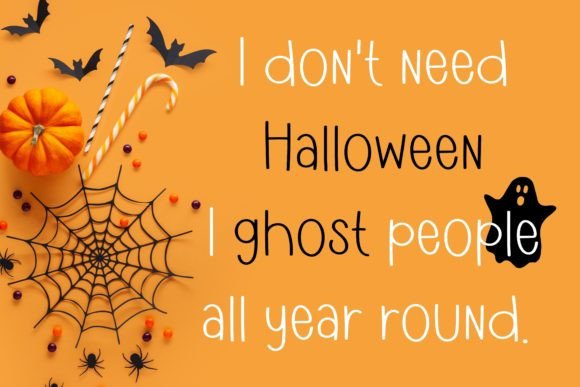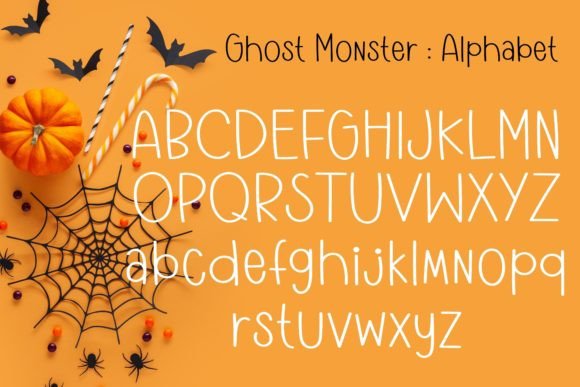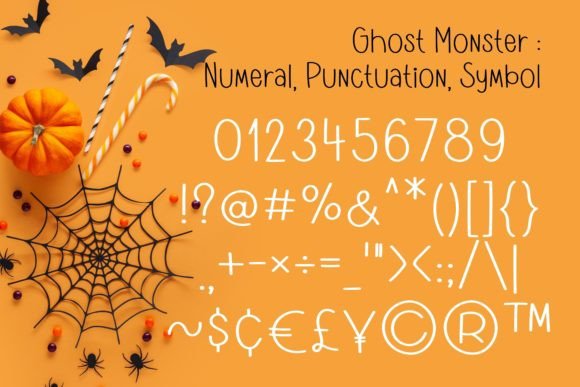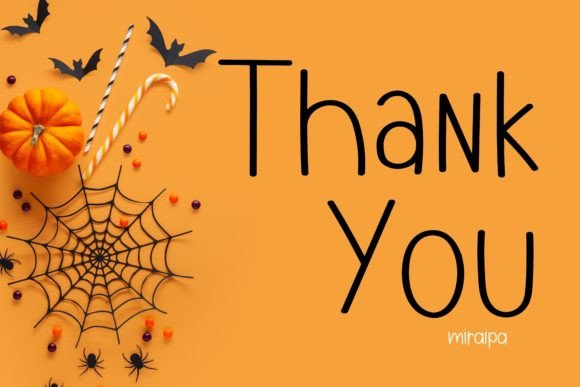
Introducing Ghost Monster Font: Add a Friendly Touch to Your DIY Projects
Are you looking for a font that can add a personal touch to your DIY projects? Look no further than Ghost Monster Font, a handwritten font designed in a friendly and lovely style. This versatile font is perfect for a wide range of projects, from diaries and planners to wedding invitations and party decorations.
What is Ghost Monster Font?
Ghost Monster Font is a unique and charming handwritten font that is sure to bring a smile to your face. Its friendly and lovely style makes it perfect for adding a personal touch to any project. Whether you’re a designer, crafter, or DIY enthusiast, this font is sure to become a favorite in your font library.
Perfect for Diaries, Planners, and Journals
If you’re a fan of journaling or love to plan your daily tasks, Ghost Monster Font is the perfect addition to your stationery. The font’s friendly and approachable style makes it ideal for writing in diaries, planners, and journals. Add a personal touch to your daily writings and make them stand out with this lovely font.
Back-to-School Projects Made Easy
As the new school year approaches, Ghost Monster Font is the perfect addition to your back-to-school projects. Use it to create eye-catching posters, decorate your school supplies, or add a personal touch to your homework assignments. This font is sure to make your projects stand out from the crowd.
Weddings and Party Decorations
Ghost Monster Font is not just limited to everyday projects. It’s also perfect for special occasions like weddings and parties. Use it to create beautiful wedding invitations, party decorations, and other celebratory materials. The font’s friendly and lovely style is sure to add a touch of warmth and personality to your special day.
Seasonal and Holiday Projects
Ghost Monster Font is a versatile font that can be used for various seasonal and holiday projects. Use it to create spooky Halloween decorations, festive Christmas cards, or other holiday-themed materials. The font’s friendly style makes it perfect for creating materials that are both fun and engaging.
As a designer or crafter, you’re always on the lookout for new and exciting fonts to add to your library. Ghost Monster Font is a great addition to any font collection. Its unique and charming style makes it perfect for a wide range of projects, from digital designs to handmade crafts.
Why Choose Ghost Monster Font?
So why choose Ghost Monster Font over other fonts? Here are just a few reasons:
- Unique and charming style: Ghost Monster Font has a one-of-a-kind style that’s sure to add a personal touch to your projects.
- Versatile: This font can be used for a wide range of projects, from everyday writings to special occasion materials.
- Easy to read: The font’s clear and friendly style makes it easy to read, even in small sizes.
- Perfect for DIY projects: Ghost Monster Font is ideal for DIY enthusiasts who want to add a personal touch to their projects.
Ghost Monster Font is a unique and charming handwritten font that’s perfect for adding a friendly touch to your DIY projects. Its versatile style makes it ideal for a wide range of projects, from diaries and planners to wedding invitations and party decorations. Whether you’re a designer, crafter, or DIY enthusiast, this font is sure to become a favorite in your font library. So why wait? Download Ghost Monster Font today and bring your projects to life!